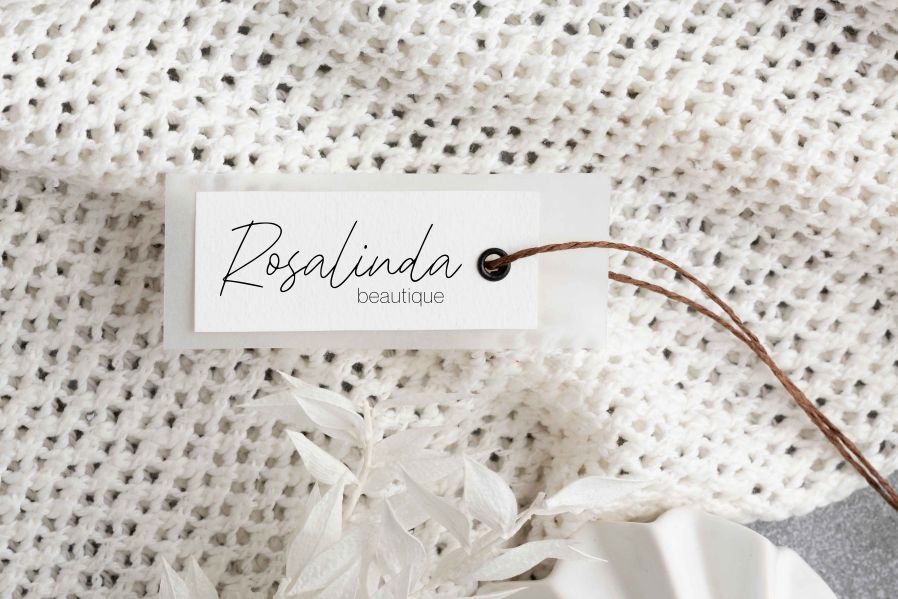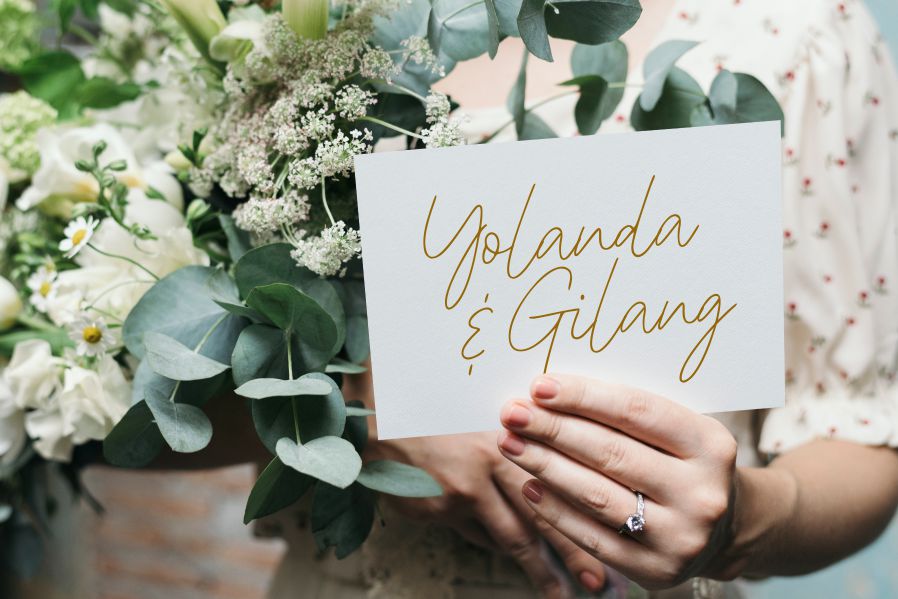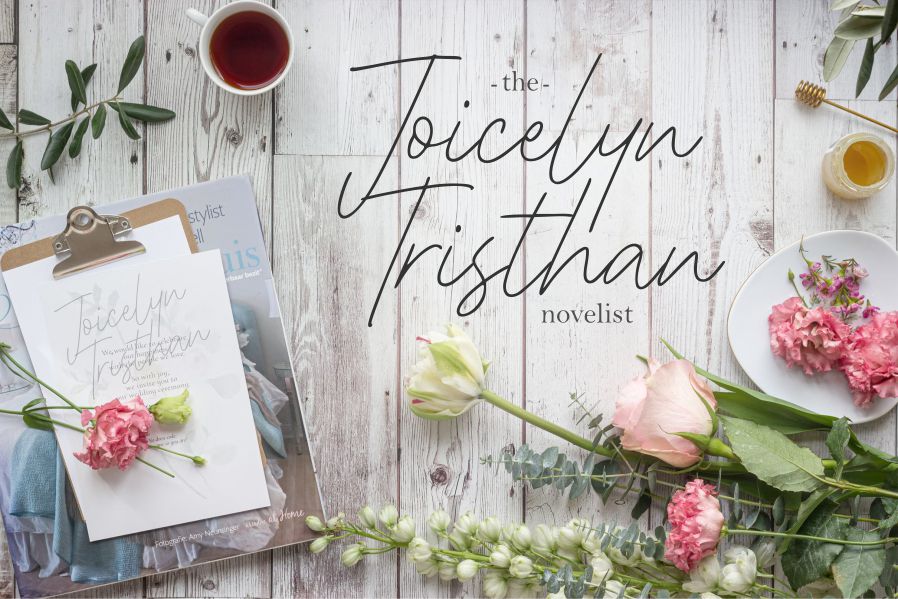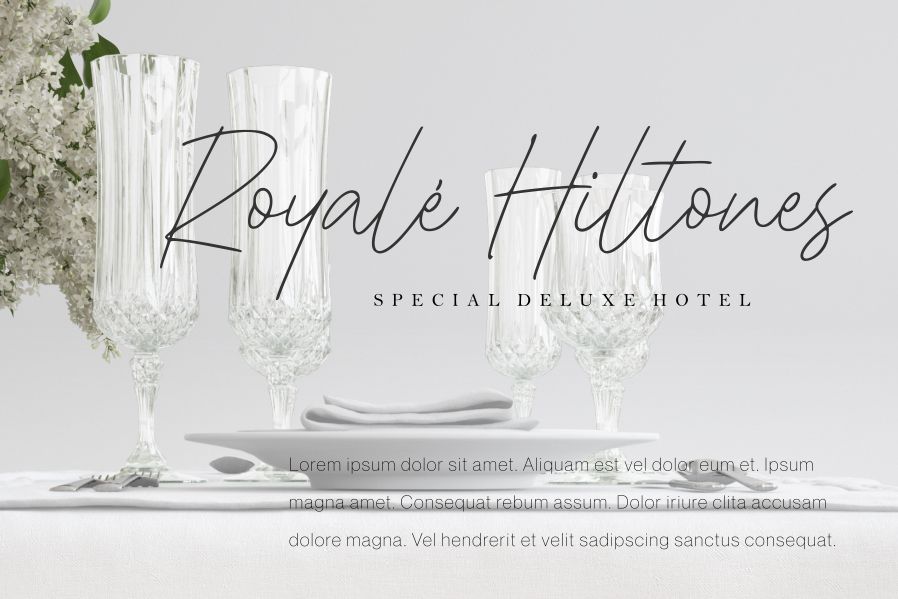
Shinymotion Font
Shinymotion Handwritten Font
This is A Monoline Script Font. Shinymotion is perfect for product packaging, branding project, megazine, social media, wedding, or just used to express words above the background. This font includes OTF&TTF&Woff, Shinymotion also multilingual support.